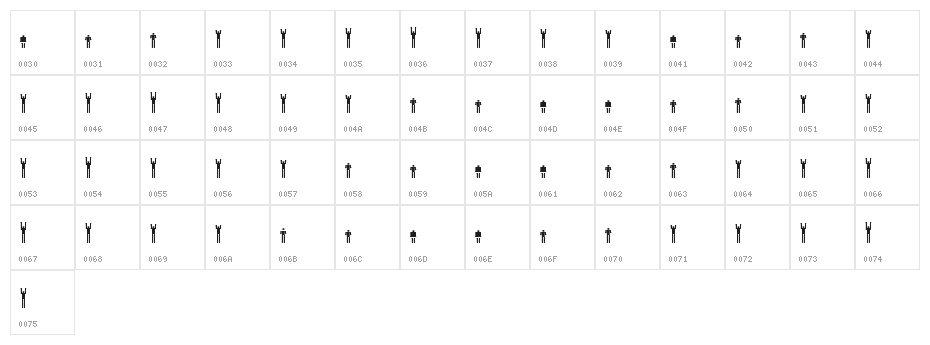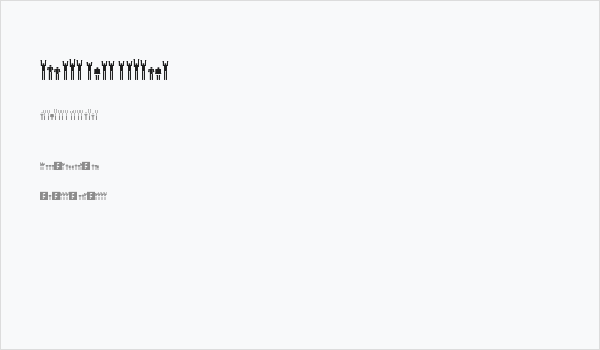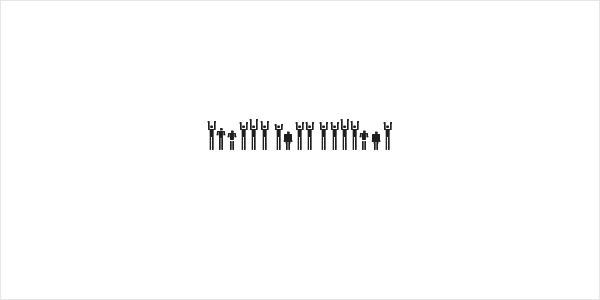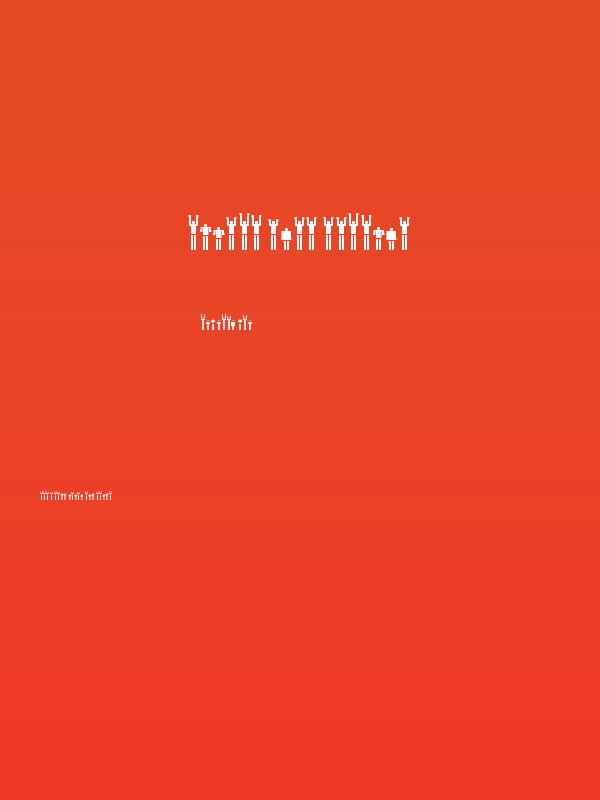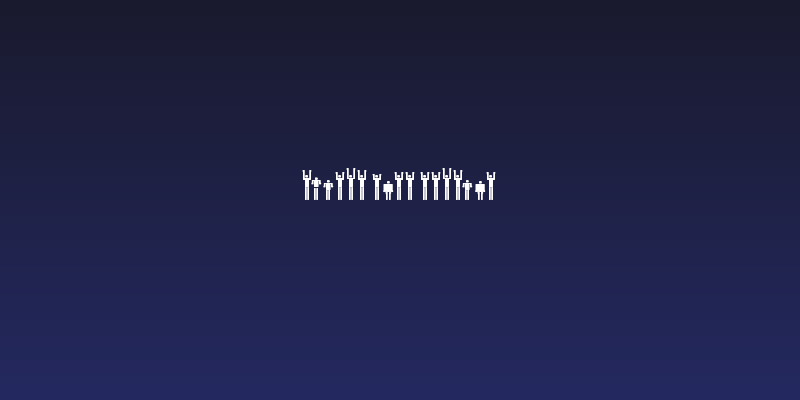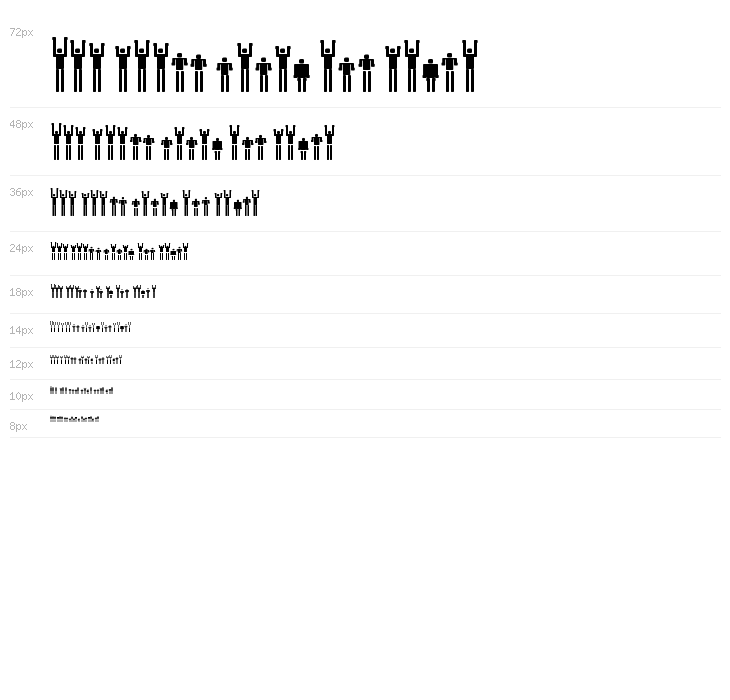
sports wave Regular Font
sports wave Regular Description
This font features a unique and playful design where each character is represented by a stylized human figure. The figures are arranged in a wave-like pattern, creating a dynamic and energetic appearance. The characters are composed of simple geometric shapes, giving them a modern and minimalistic look. This font is highly decorative and is best suited for creative and informal projects. The consistent use of human figures across all characters adds a sense of unity and coherence to the design.
| Proposed Projects | Ideal for sports-themed posters, event flyers, children's books, and creative branding projects. |